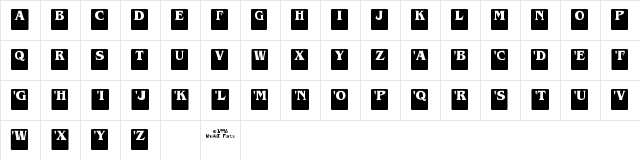
DropCaps Serif
Style: Serif
Design Context for DropCaps
DropCaps carries the refined structure of traditional serif typography, with bracketed terminals and considered proportions that communicate credibility and craft.